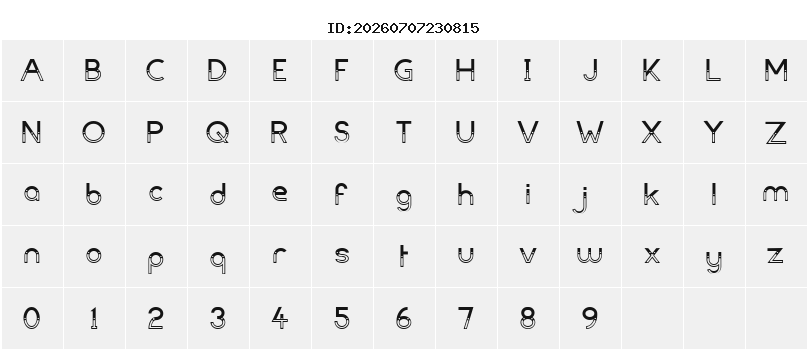
Dark Bastion Preview
• Font Name: Dark Bastion
• Font ID: Dark Bastion
• Full Font Name: Dark Bastion
About Dark Bastion.ttf
Dark Bastion.ttf is a modern, elegant sans-serif font designed for ultimate readability and visual harmony. Perfect for branding, headlines, web design, and print materials.